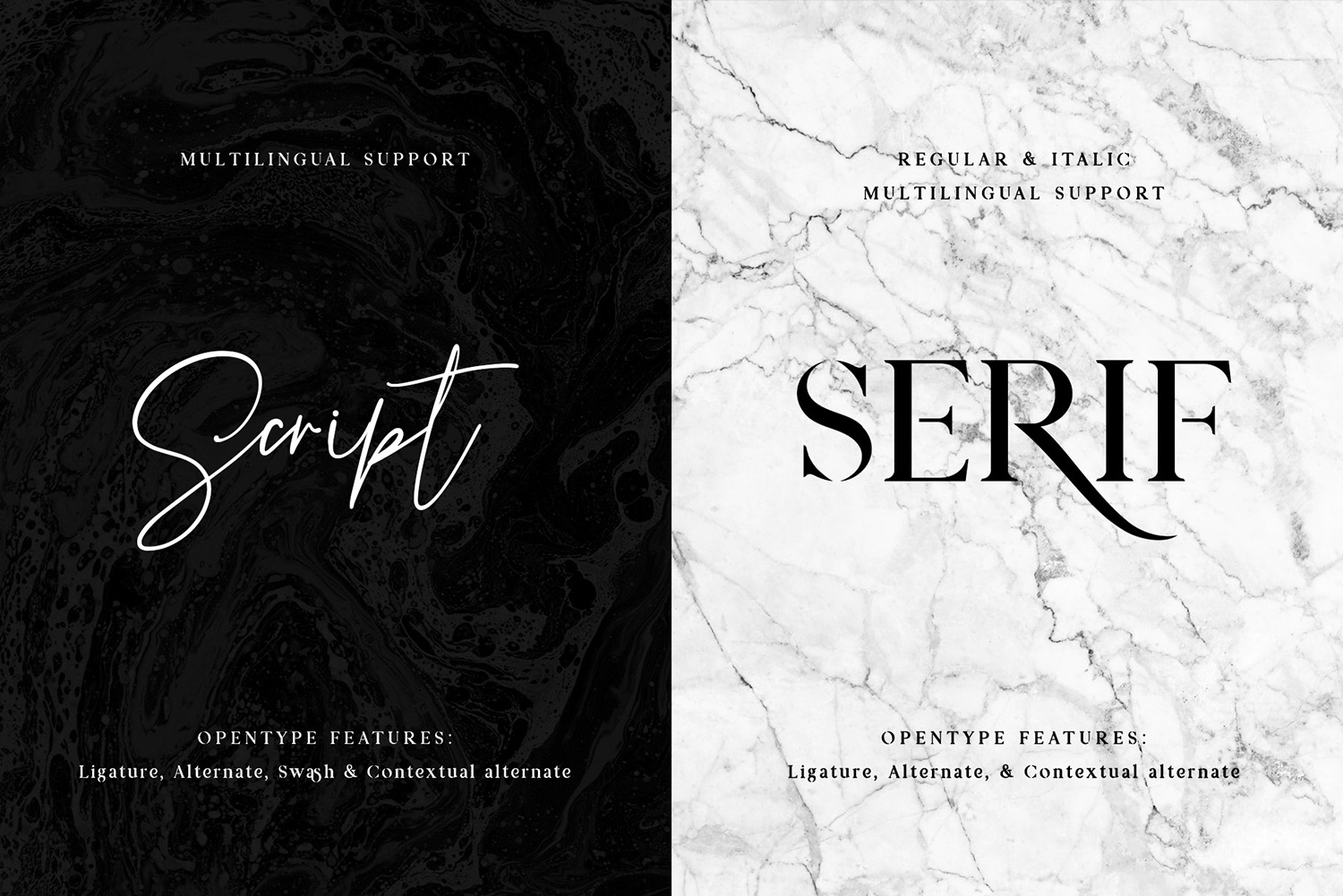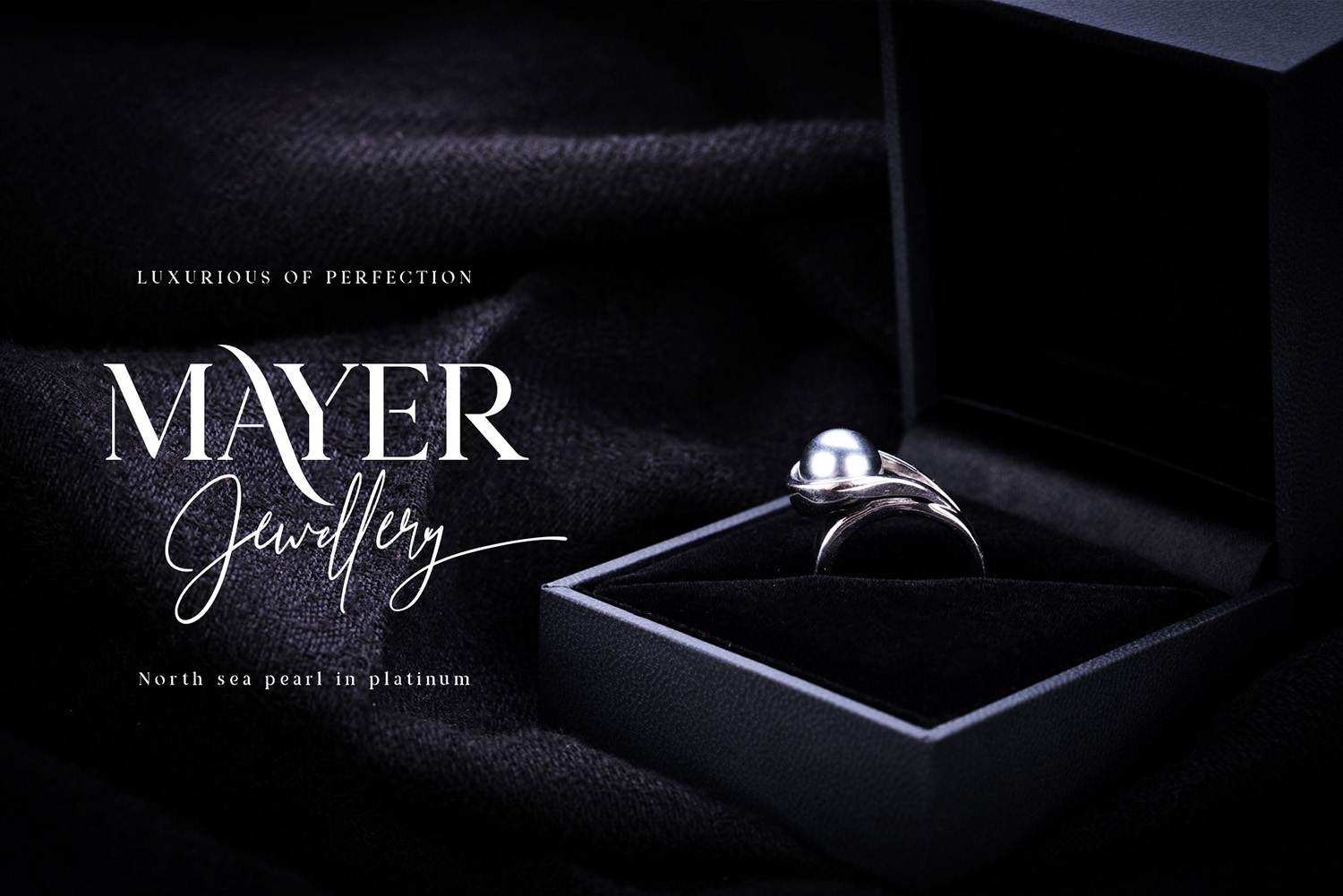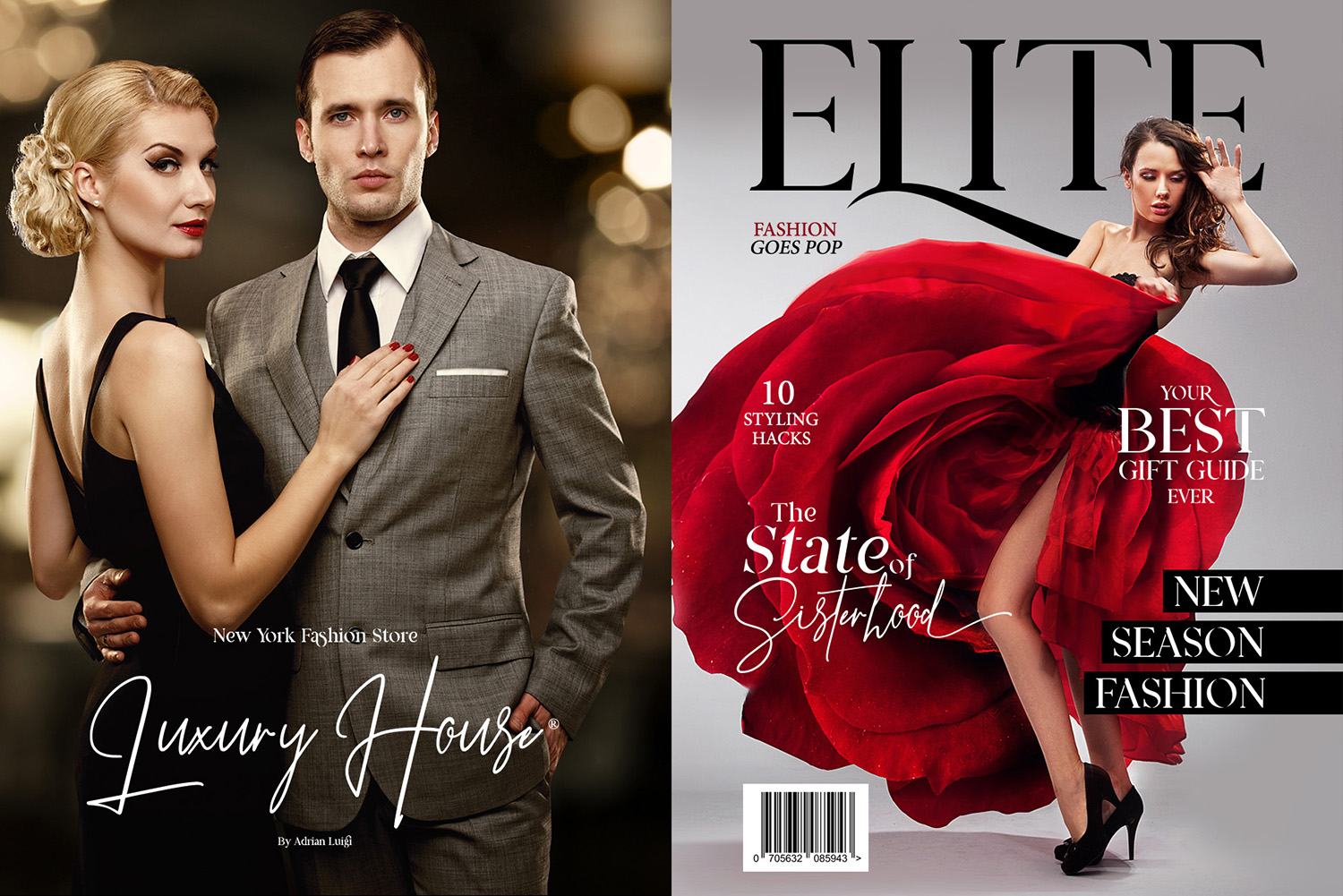
Prestige Signature Free Font
Prestige Signature Free Font is a fancy serif and script font. With a stylish old school serif font and a free-flowing signature script. Easy to use for your design projects, including logos & branding, wedding designs, social media posts, advertisements & product designs. This free typeface was designed by talented Ade Meiada. If you like it don’t forget to check out the full version.